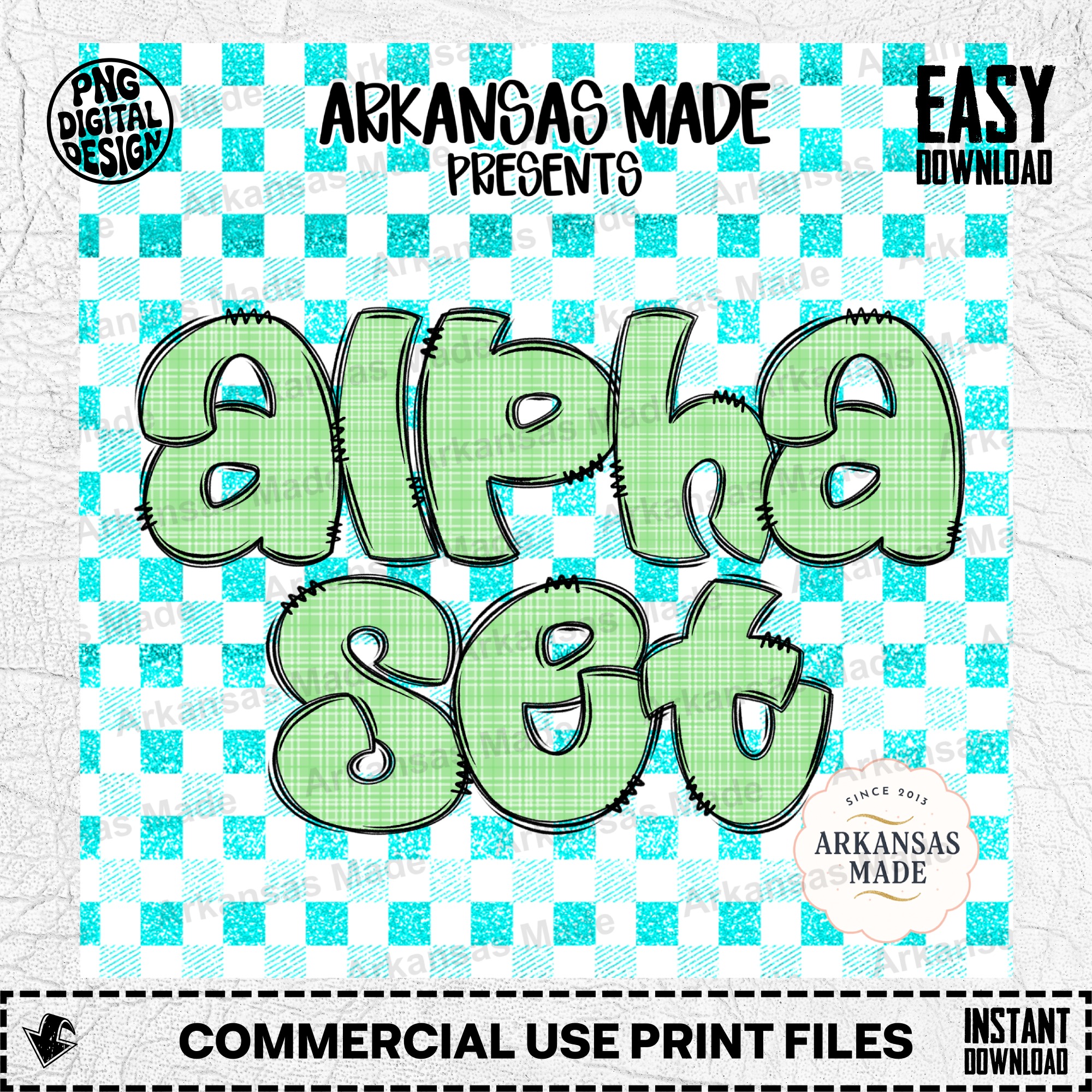
Get creative with this delightful Green Plaid Bubble Letters PNG Alpha Set! Perfect for unique sublimation designs, digital crafting, and personalized gifts. This charming alpha set features a playful, hand-drawn distressed outline with a cozy green plaid pattern fill, bringing a touch of whimsical country chic to your projects. Ideal for small business owners, crafters, and educators looking to design custom apparel, nursery art, party decorations, or heartfelt personalized items. Unlock endless possibilities for birthdays, baby showers, or any special occasion.